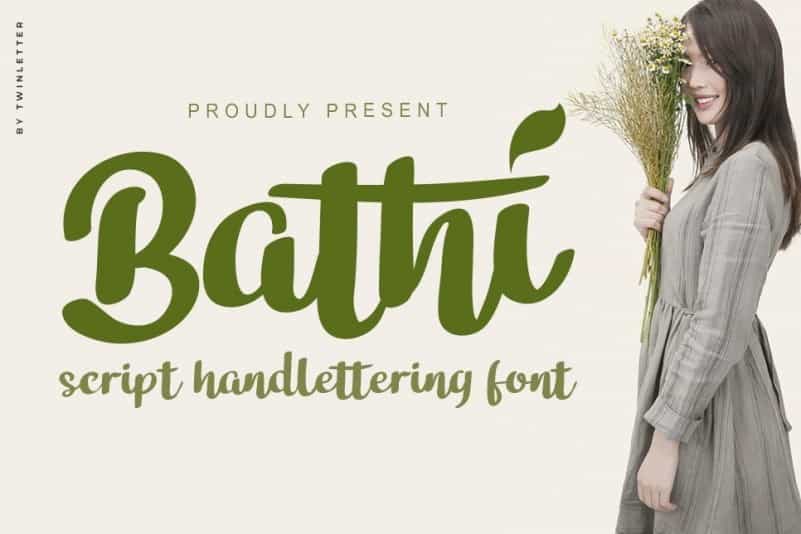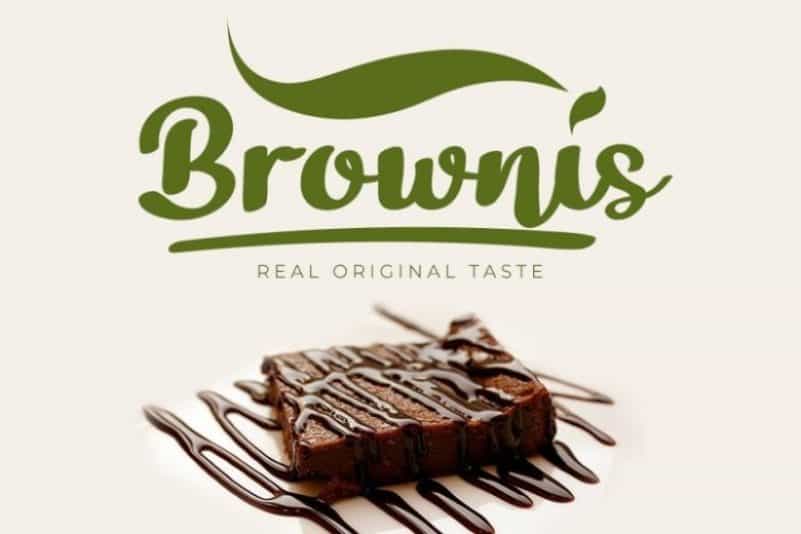
Meet the Bathi font. Crafted with a touch to exude an friendly vibe while maintaining its beautiful appearance. With this font you can design elegant and captivating creations. It’s perfect for book titles, quotes, covers, paragraphs, logos, posters, wedding invites and more.